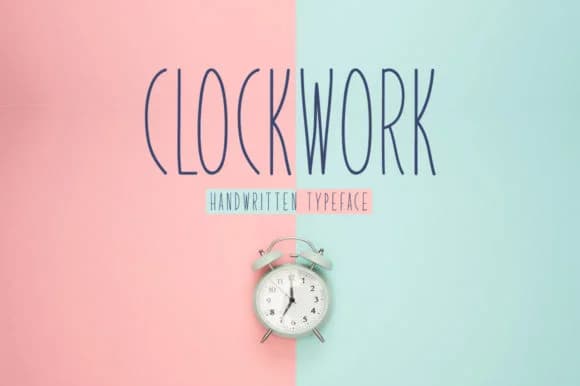
1 / 4About Clockwork Font
Clockwork Font by Shattered Notion is an elegant display typeface characterized by thin, refined letterforms that convey sophistication and restraint. This carefully designed font brings a delicate touch to any project requiring visual subtlety, where graceful typography works to enhance composition without overwhelming the viewer's attention. The precision of its construction speaks to designers who understand that less can indeed be more, and who value the power of understated elegance in their work.
Designers frequently choose Clockwork for wedding invitation suites with upscale aesthetics that require understated refinement, luxury fashion branding that speaks through elegant simplicity, fine dining restaurant menus seeking to communicate quality, and boutique skincare packaging where delicate letterforms signal premium positioning. The thin weight provides excellent versatility across both print and digital applications, making it a practical choice for designers seeking sophisticated typography without sacrificing legibility or impact.
Whether you're developing a premium brand identity, crafting luxury stationery, or designing packaging for discerning clientele, Clockwork Font delivers the refined character your work deserves. Find this elegant typeface on Creative Fabrica and bring timeless sophistication to your next creative project.
Clockwork Font is a script font that shines as a display or heading face. Pair it with a clean sans-serif or serif font for body text β the contrast creates a clear hierarchy while the two styles stay balanced and easy to read.